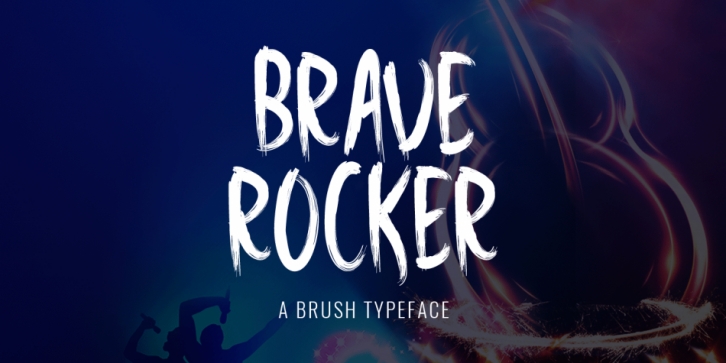
Designed by Md. Shohail Bhuiyan, Brave Rocker is a brush display font published by Seemly Fonts.
Introducing Brave Rocker!
Brave Rocker is a new brush font. Brave Rocker is perfectly suited to stationery, logos, t-shirt, paper, print design, website header, photo frame, flyer, music cover, poster, image slider and much more.